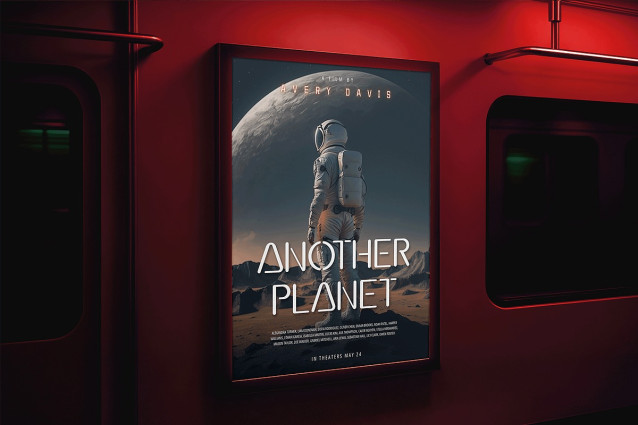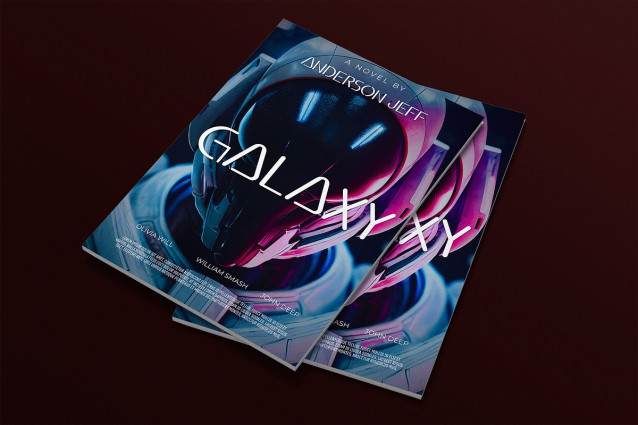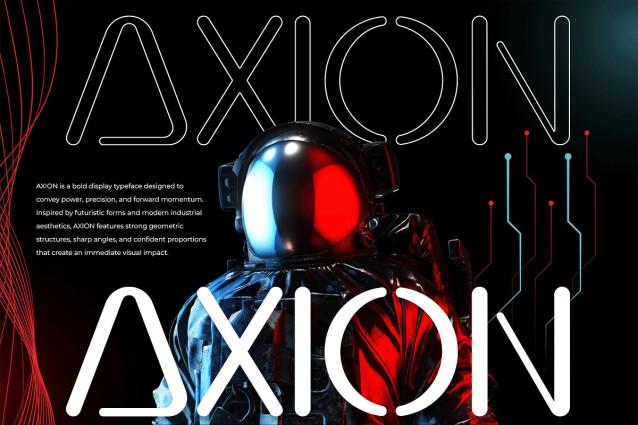
Axion Font
Axion Font a bold display typeface created to deliver uncompromising strength and striking visual power. With its heavy strokes, confident geometry, and modern proportions, Axion is designed to dominate attention and make every headline unforgettable.